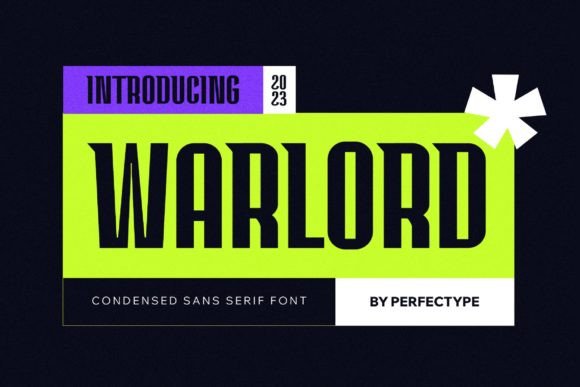
In the bustling metropolis of typography, Warlord Font emerges as a captivating display sans serif, born from the creative forge of Perfectype. This font is a symphony of symmetry and balance, masterfully crafted with subtle contours and calculated contrasts. Warlord Font possesses a persuasive presence, commanding attention with its distinct dance of lines that imparts grace and sophistication to any visual escapade.
Step into a world of captivating visuals, where the rhythm of Warlord Font orchestrates a visual masterpiece. Experience the allure of precise proportions and elegant letterforms, as they intertwine to create a captivating display that transcends conventional boundaries. Be it the dynamic realm of digital art, the allure of print publications, or the fast-paced panorama of motion graphics, Warlord Font captivates with its unwavering charm.
Unleash the boundless potential of Warlord Font and ignite your creative vision. Witness the seamless harmony between form and function as this versatile typeface adapts effortlessly to a symphony of design genres. From the allure of branding and logos to the eloquence of magazines and layout designs, Warlord Font amplifies the impact of every word, transforming ordinary text into an extraordinary visual spectacle.
Discover the artistry of Warlord Font in the vibrant world of entertainment, where it reigns supreme as the ultimate font for captivating TV displays. Immerse yourself in a visual odyssey, as this font dances across the screen with its inherent grace, captivating audiences with its undeniable allure. Let Warlord Font captivate hearts and minds, leaving a lasting impression that lingers long after the final curtain falls.
Embrace the allure of Warlord Font and unlock a new realm of visual expression. With its symphony of elegance and rhythm, this font transforms the mundane into the extraordinary, elevating every project to new heights of excellence. Experience the joy of seamless creativity, as Warlord Font becomes your trusted companion in the world of visual artistry.